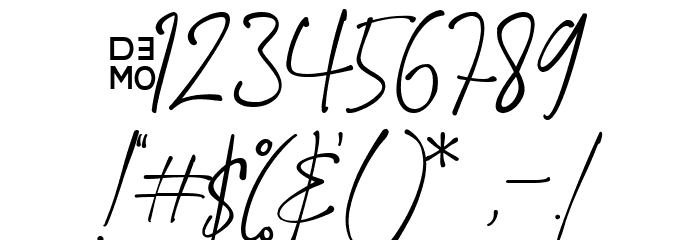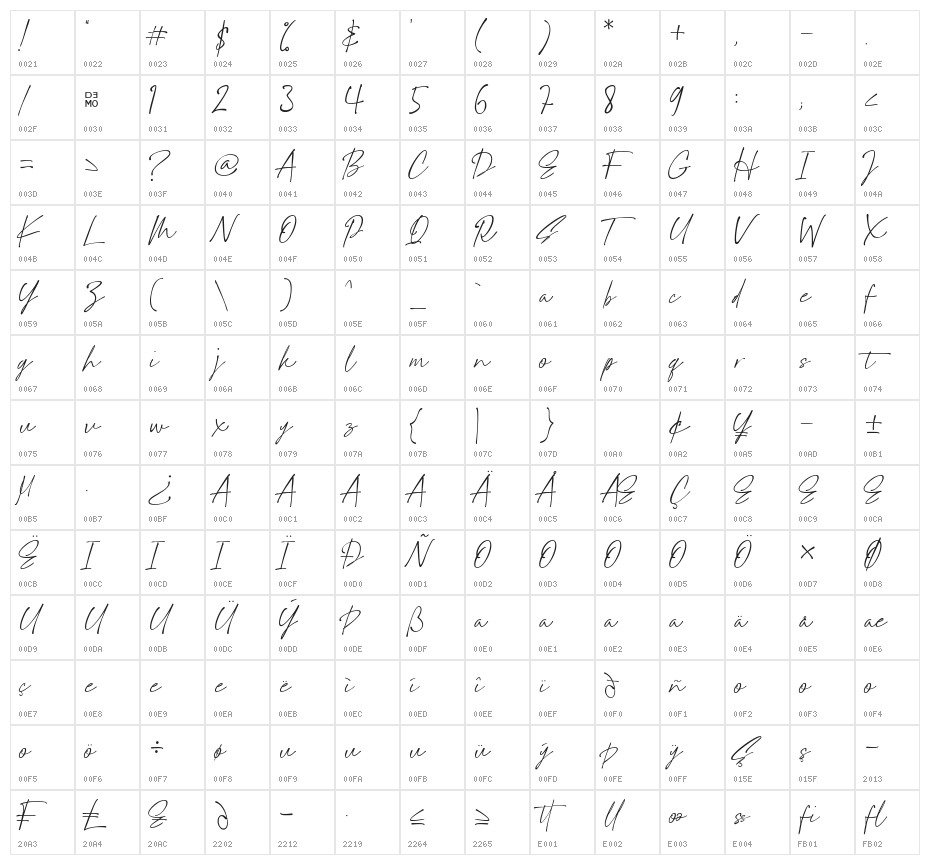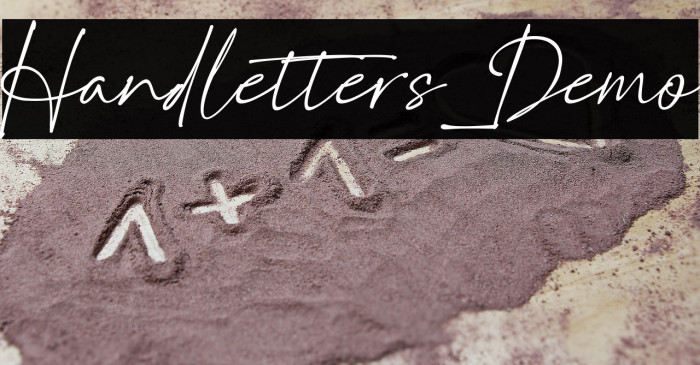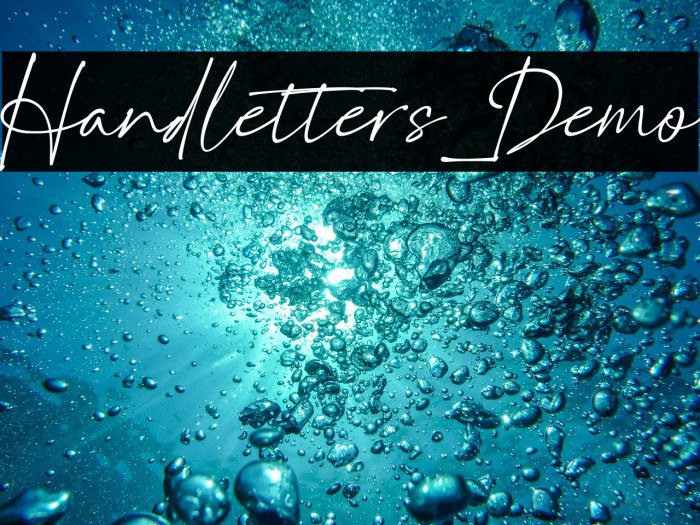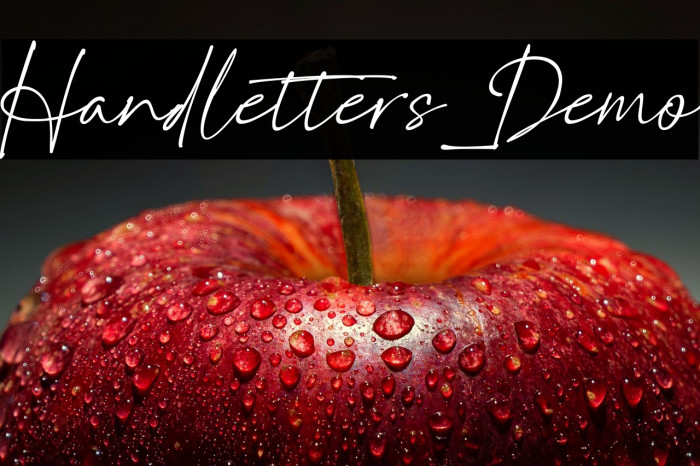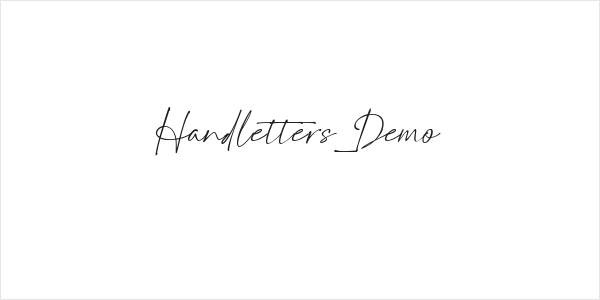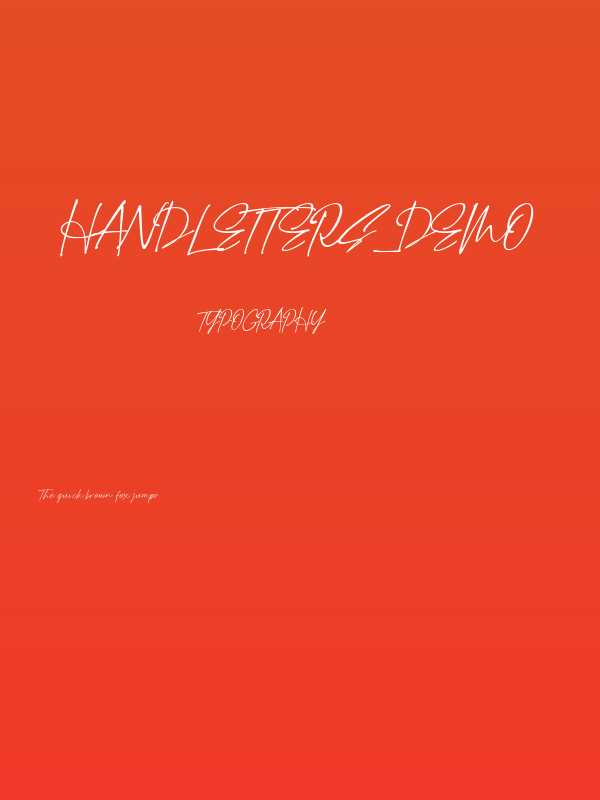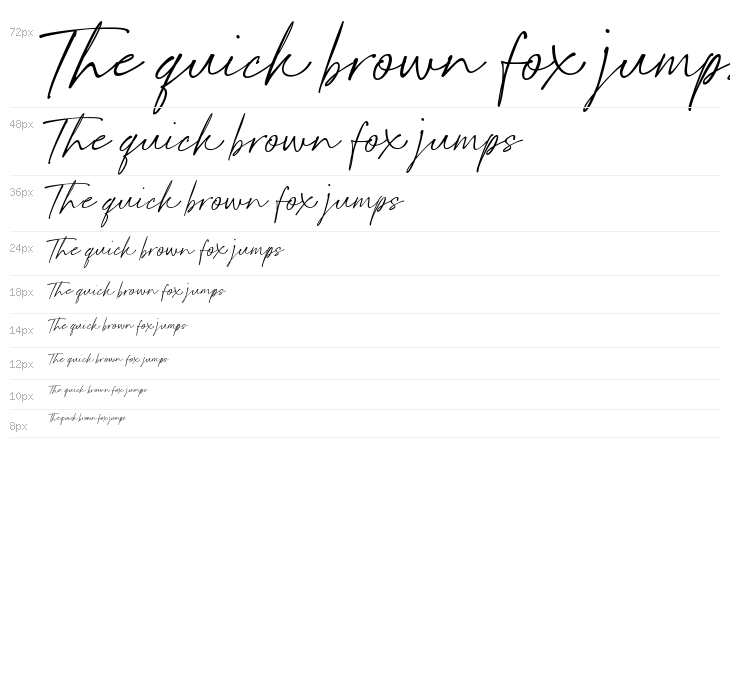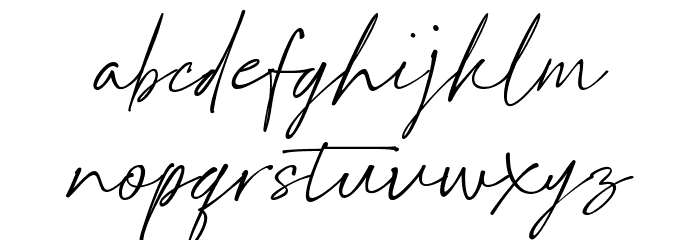
Handletters_Demo Font
Handletters_Demo Description
This font exhibits a dynamic and fluid handwritten style, characterized by its elegant and flowing letterforms. The uppercase letters are bold and expressive, with a slight slant that adds a sense of movement and energy. The lowercase letters maintain a consistent rhythm, with smooth curves and loops that enhance the overall aesthetic. The numerals are clear and legible, complementing the alphabet with their rounded and slightly elongated shapes. Special characters are thoughtfully designed, integrating seamlessly with the rest of the font. The overall impression is one of sophistication and creativity, making it suitable for a variety of design applications.